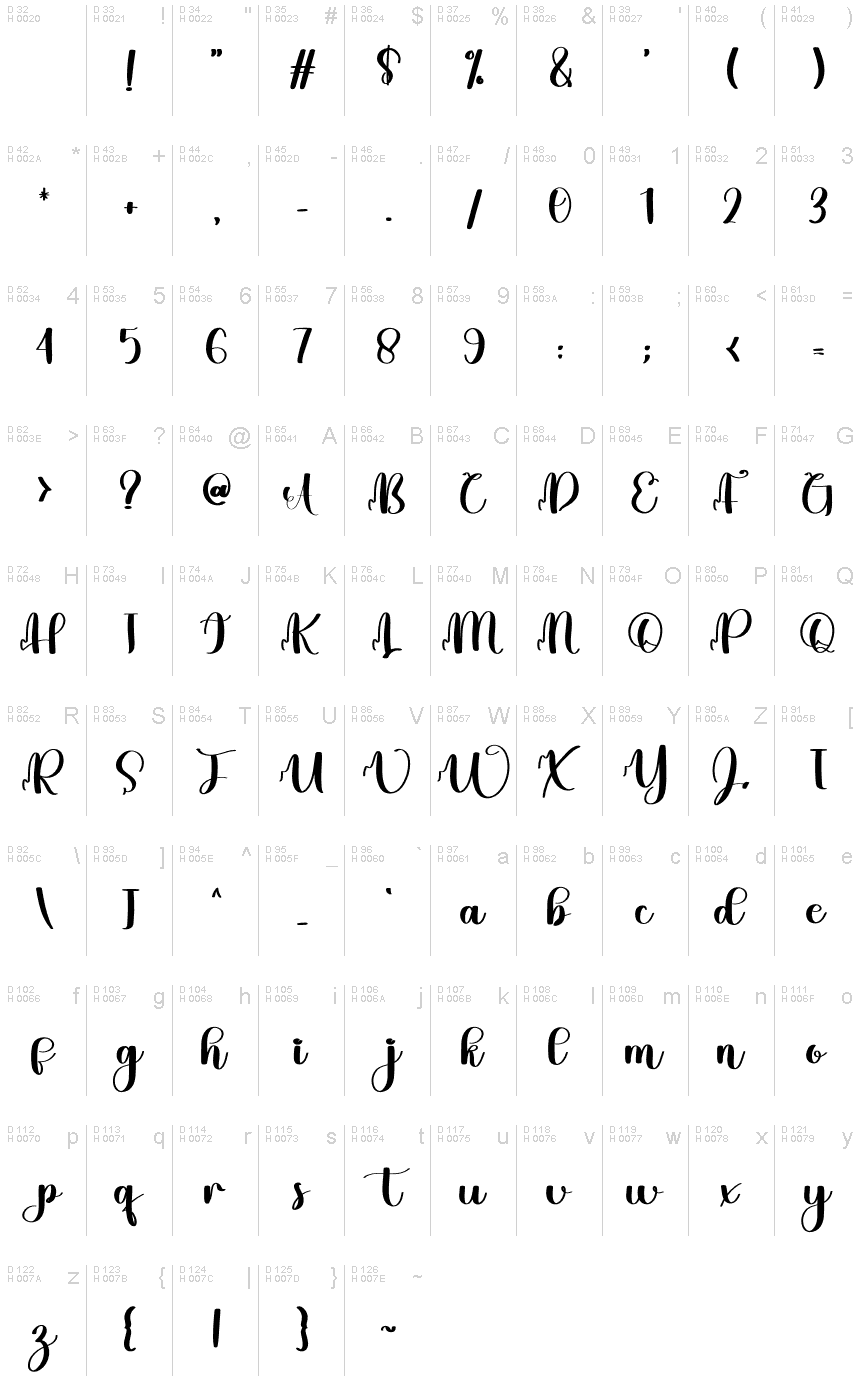
Minds
Minds, a stunning calligraphy font designed by Inermedia Studio, exudes elegance and sophistication. Its semi-bold weight adds a touch of modernity to its classic charm.
With its graceful curves and flowing strokes, Minds is ideal for wedding invitations, luxury branding, and high-end fashion magazines. This versatile font captivates with its refined beauty and will elevate any project it graces. Whether you're designing a logo for a luxurious event or creating an exquisite editorial layout, Minds will bring a touch of elegance to your work.